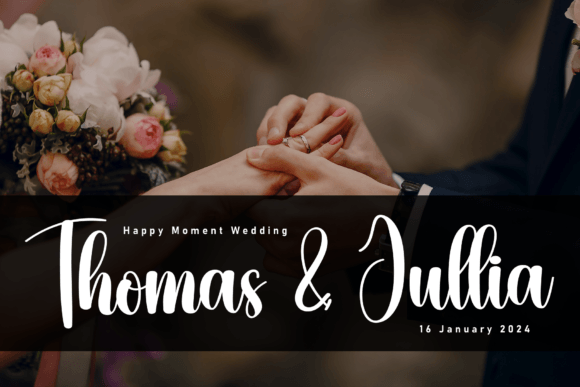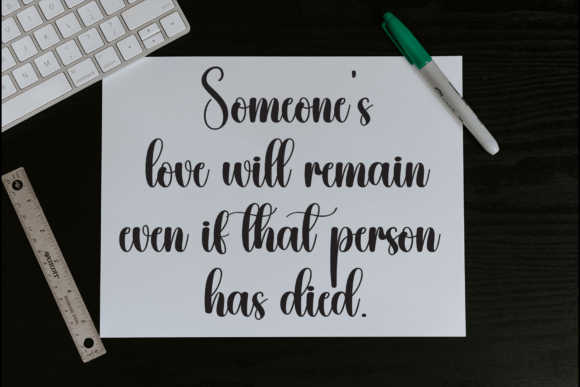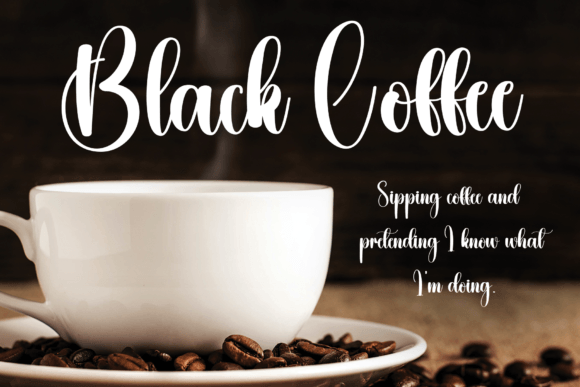
Introduction to Lonelyday Font
Lonelyday is a fun and versatile handwritten font.
Whether you’re using it for crafting, digital designing, presentations, or greeting card making, it’s perfect .
Key Features of Lonelyday Font
Why Choose Lonelyday Font?
Lonelyday Font offers exceptional quality and versatility, making it a valuable addition to your design toolkit. Whether you’re creating for personal projects or commercial use, Lonelyday Font delivers professional results.